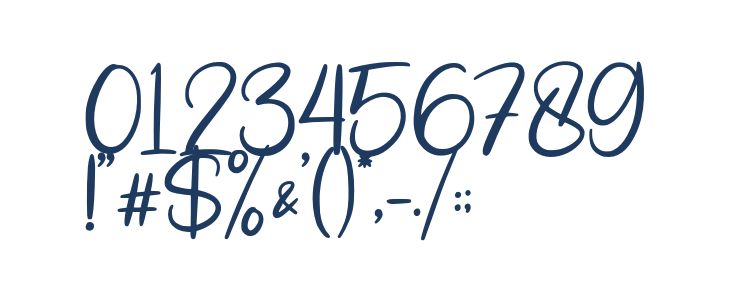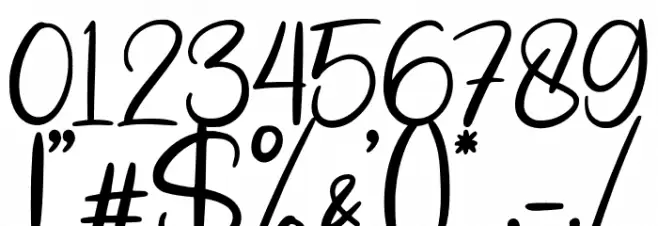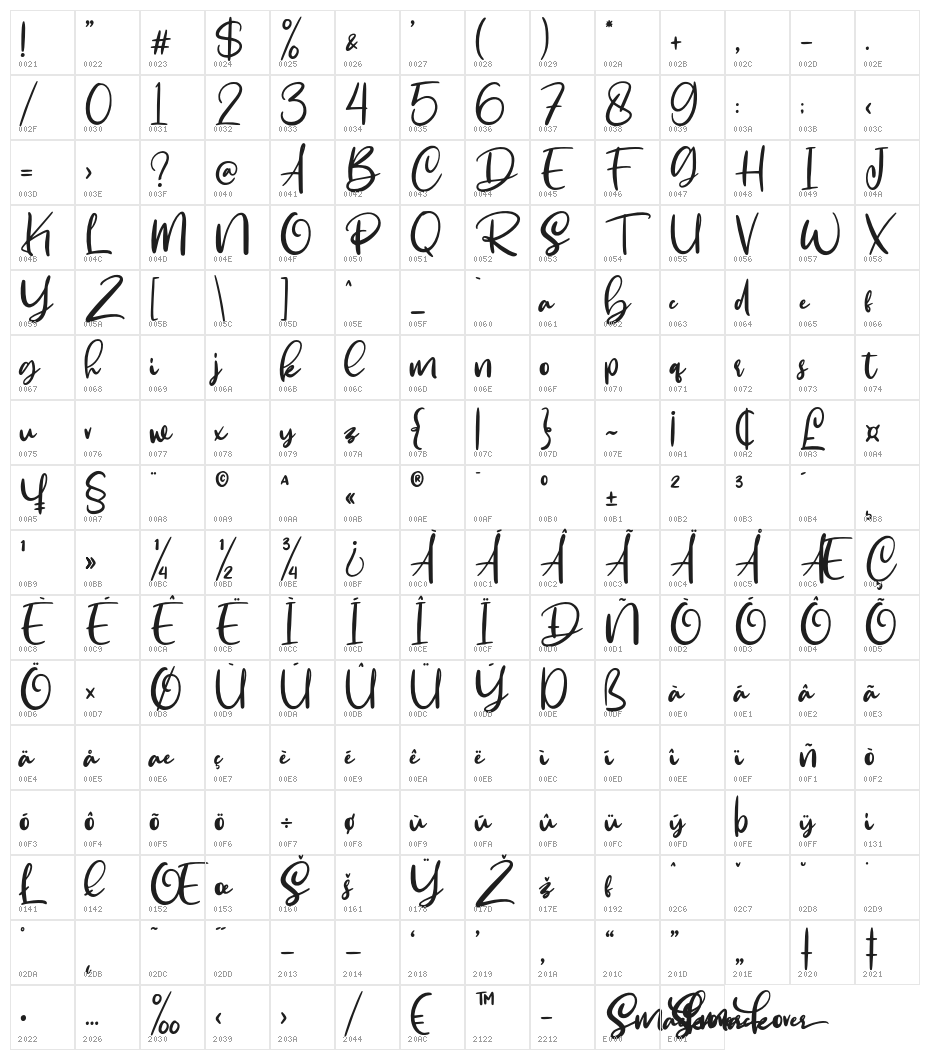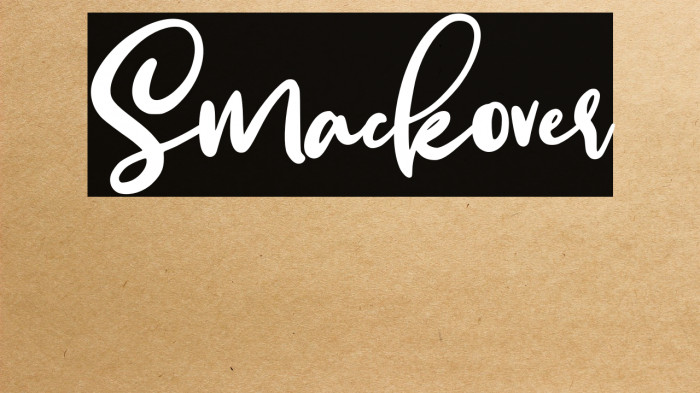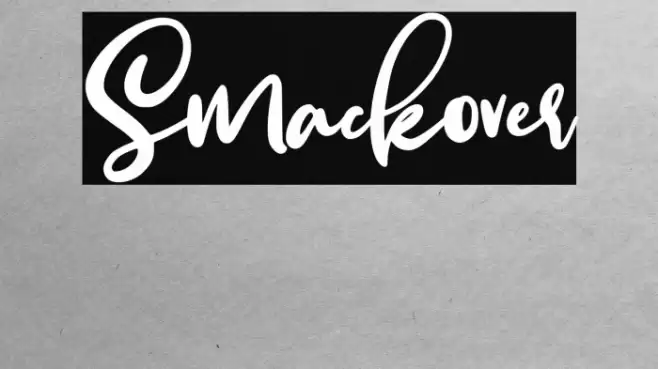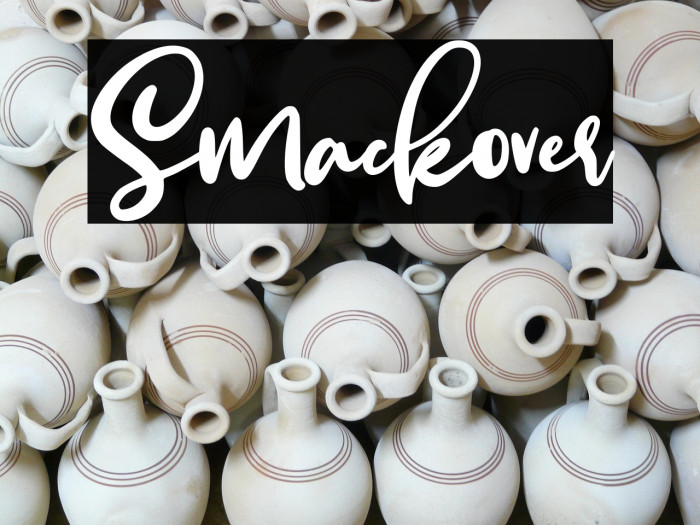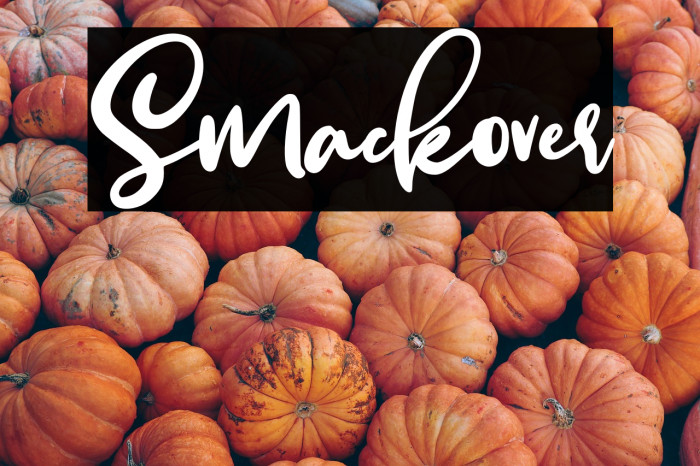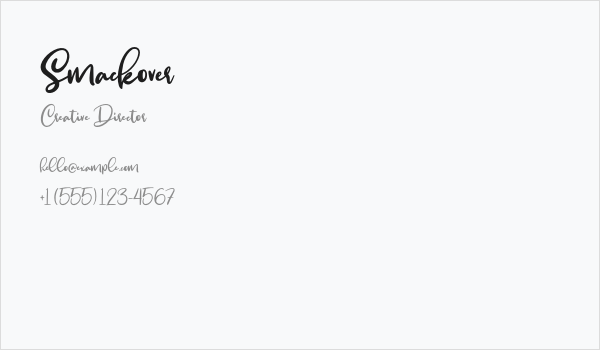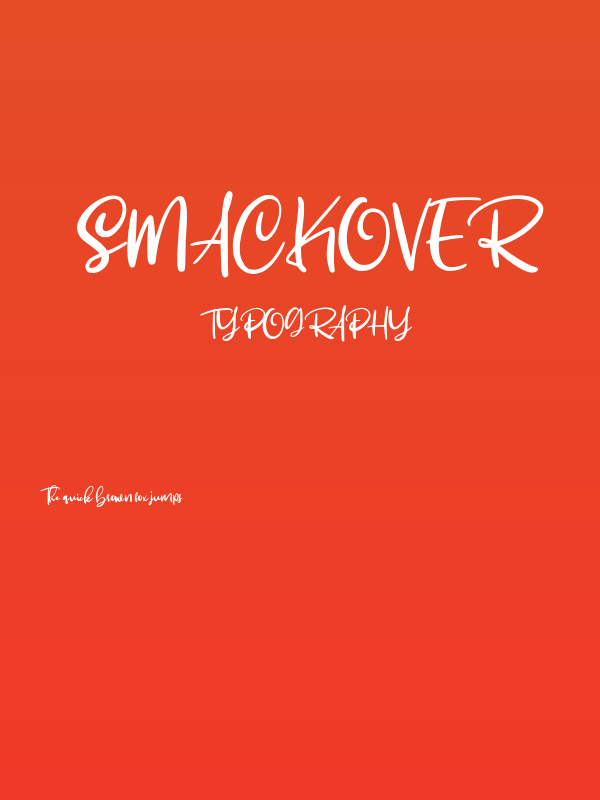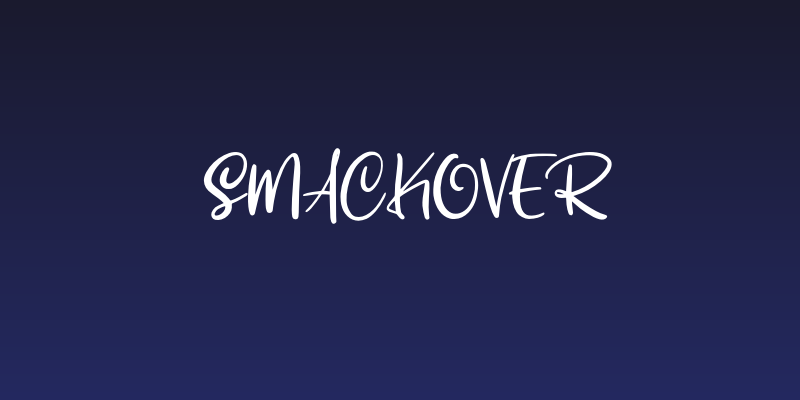
Smackover Font
Smackover Description
This font exudes a lively and energetic vibe with its bold, flowing script style. The characters are connected in a cursive manner, giving it a handwritten appearance. The uppercase letters are slightly more structured, while the lowercase letters exhibit a playful loopiness. The numbers maintain the same energetic flow, making them consistent with the overall style. Special characters are integrated seamlessly, maintaining the font's cohesive look. This font is perfect for projects that require a personal touch, such as invitations, greeting cards, or branding materials that aim to convey a sense of warmth and approachability.
Use CaseLogos, Headlines, Invitations
Proposed ProjectsIdeal for invitations, greeting cards, personal branding, and creative projects.